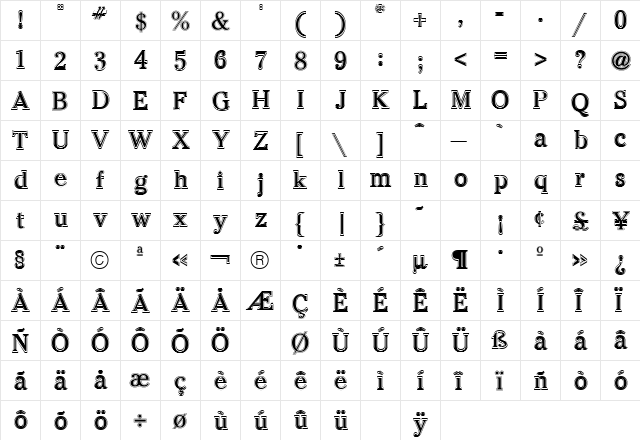
Cheltenham Contour Regular
Design Context for Cheltenham Contour Typeface
Cheltenham Contour takes a measured approach to typography — its balanced proportions and neutral character make it a reliable workhorse for both digital and print work.